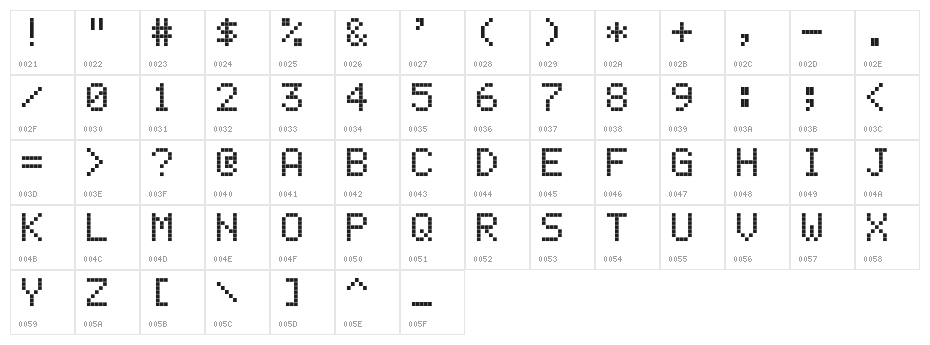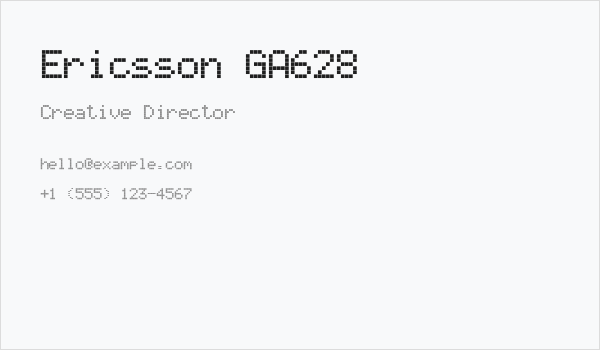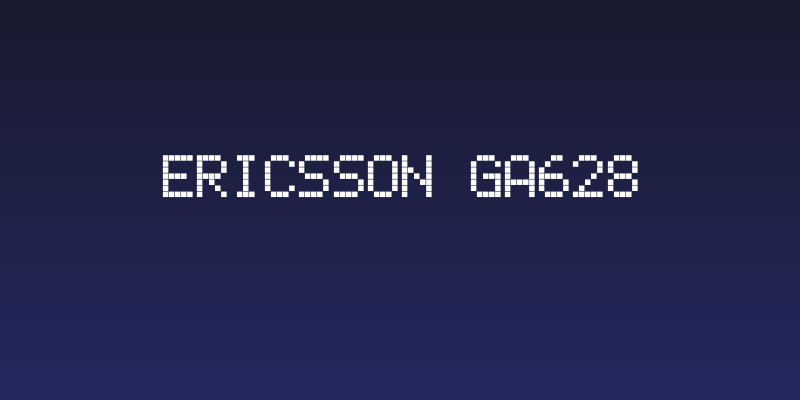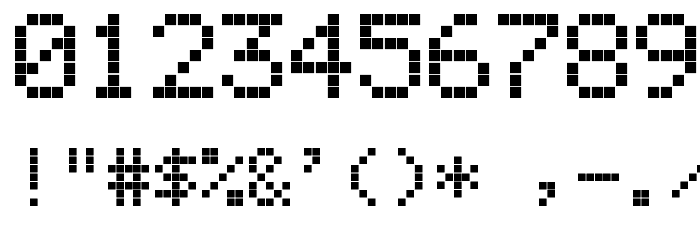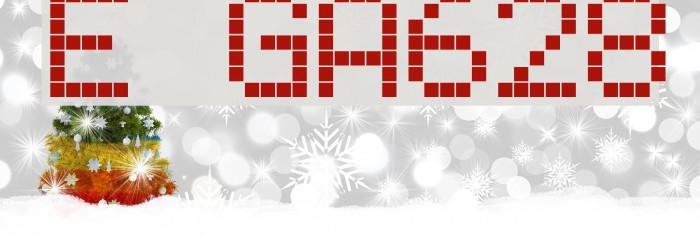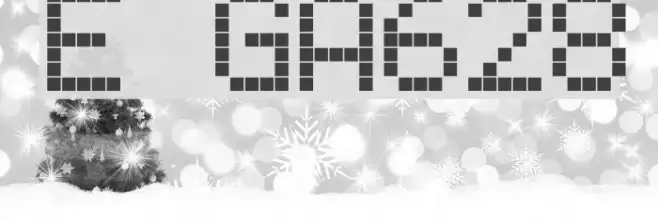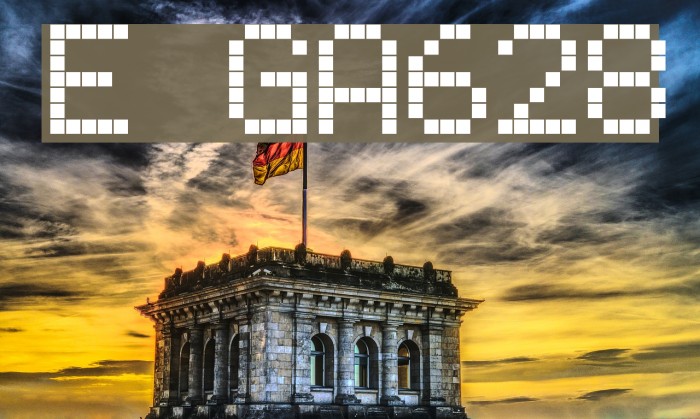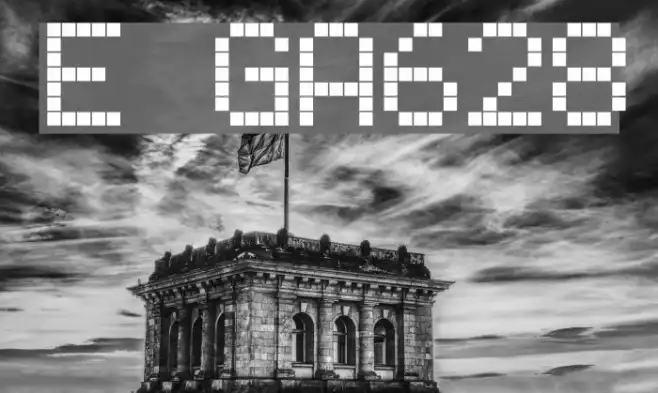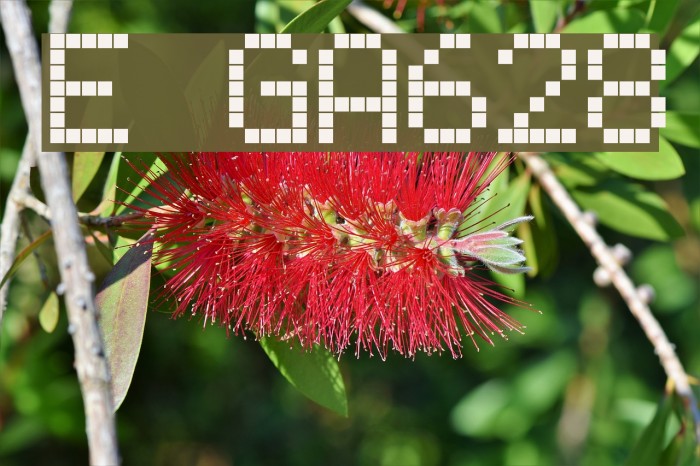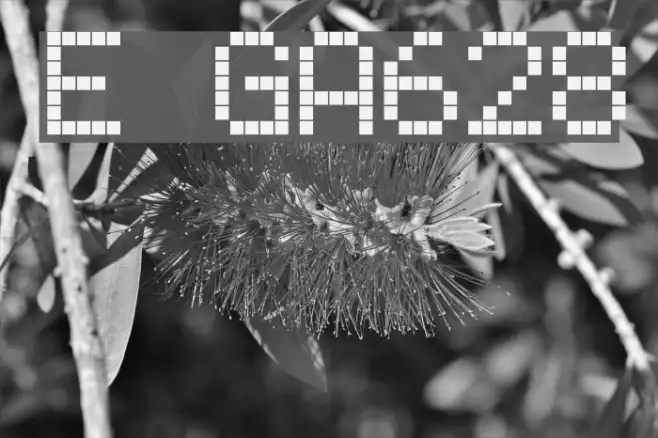
Ericsson GA628 Font
Ericsson GA628 Description
This font features a unique pixelated design, reminiscent of early digital displays and retro gaming aesthetics. Each character is constructed from a grid of small squares, giving it a distinct, blocky appearance. The uppercase and lowercase letters maintain a consistent height, with clear differentiation between each character. Numbers and special characters follow the same pixelated style, ensuring uniformity across the font. The overall look is both nostalgic and modern, making it suitable for projects that aim to evoke a sense of digital nostalgia or a tech-oriented theme.
| Overall Style | Retro, Digital |
| Use Case | Logos, Headlines, Digital Art |
| Proposed Projects | Ideal for retro video games, tech-themed posters, digital art projects, and any design that seeks to capture a vintage digital feel. |